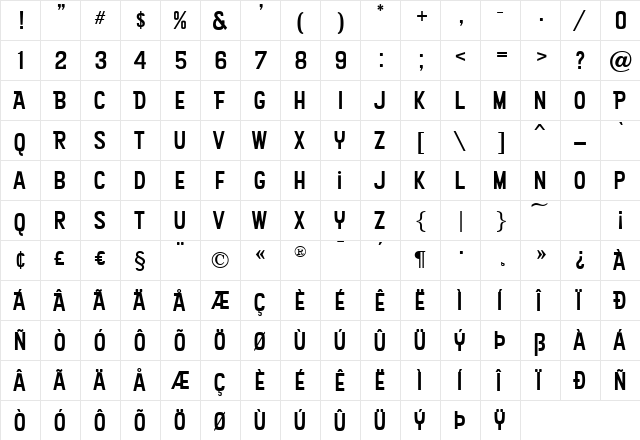
KonTikiAlohaJF Regular
Design Context for KonTikiAlohaJF Typeface
KonTikiAlohaJF takes a measured approach to typography — its balanced proportions and neutral character make it a reliable workhorse for both digital and print work.